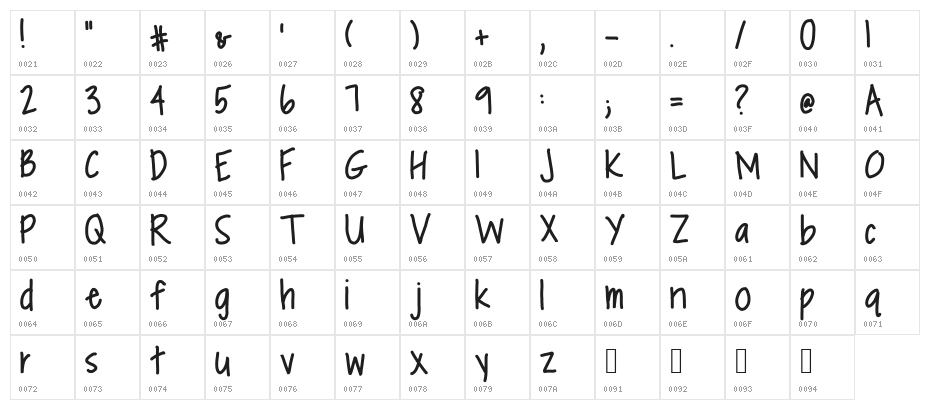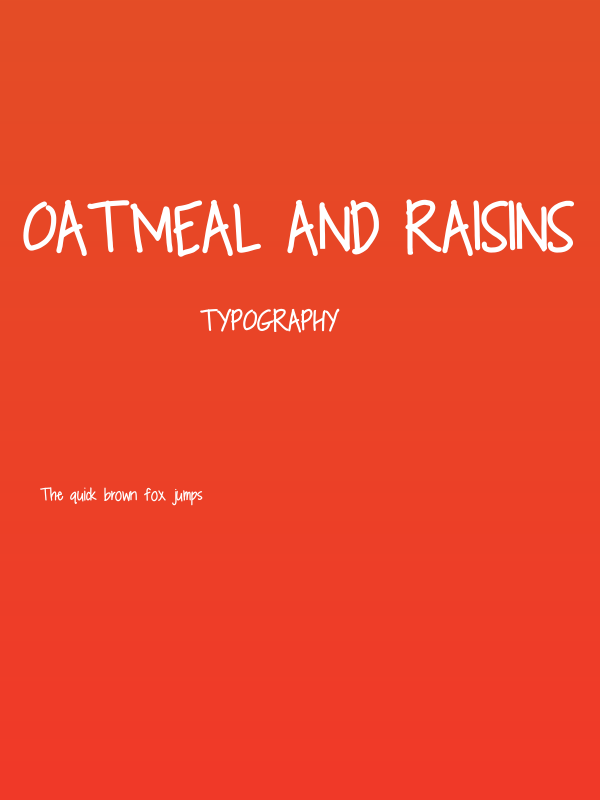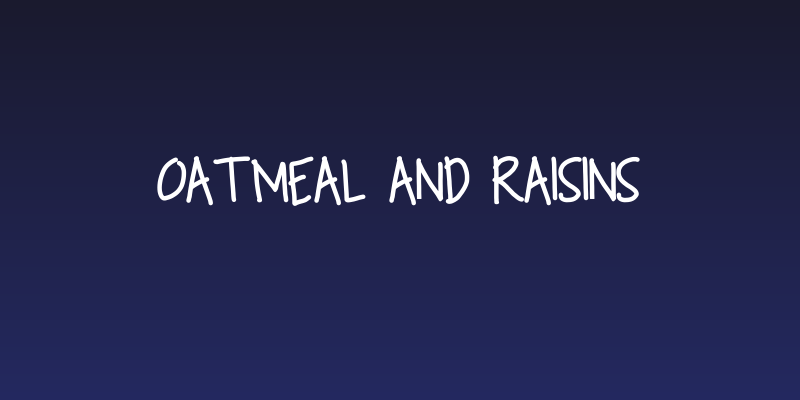
oatmeal and raisins Font
This playful and informal font features a handwritten style with a casual and friendly appearance. The letters are slightly irregular, adding a personal touch and a sense of authenticity. The strokes are consistent in weight, creating a uniform look across both uppercase and lowercase letters. The numbers and special characters maintain the same whimsical style, making this font versatile for various creative projects. Its approachable and relaxed vibe makes it suitable for designs that aim to convey warmth and personality.
Overall StyleCasual
Use CaseHeadlines, Informal text, Creative projects
Proposed ProjectsIdeal for greeting cards, children's books, personal blogs, and informal branding materials.